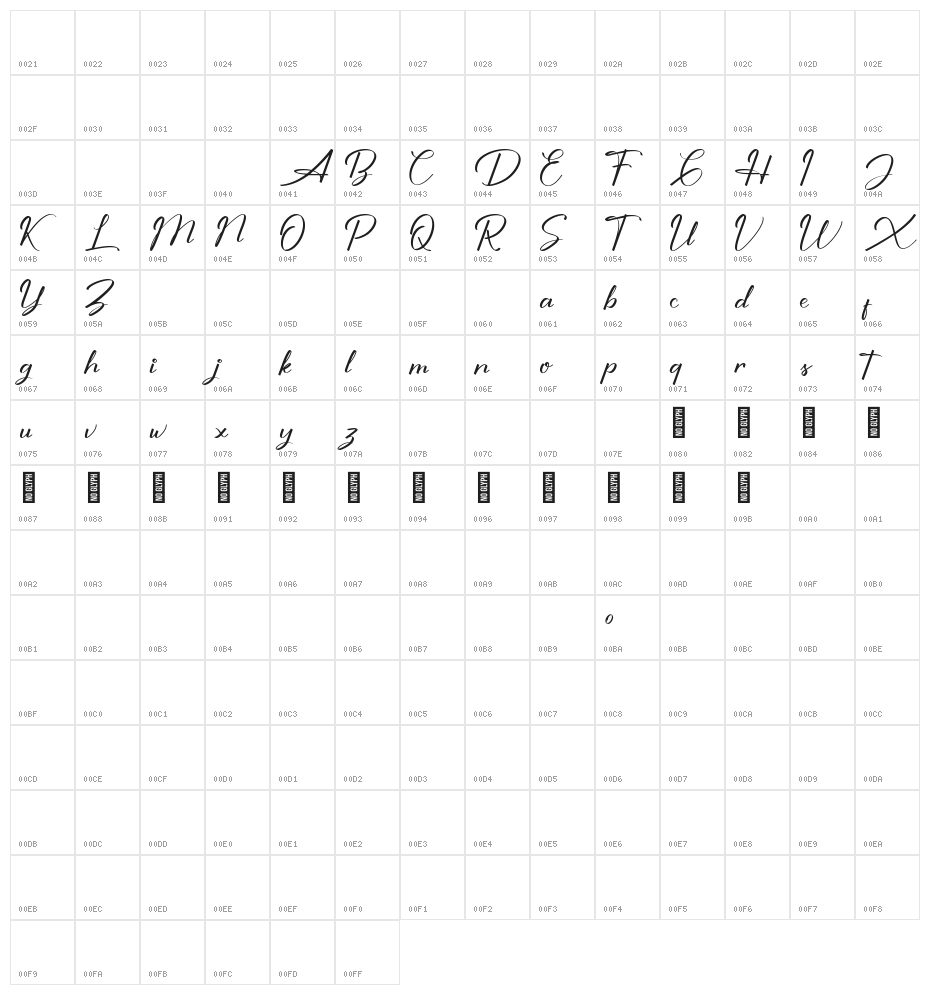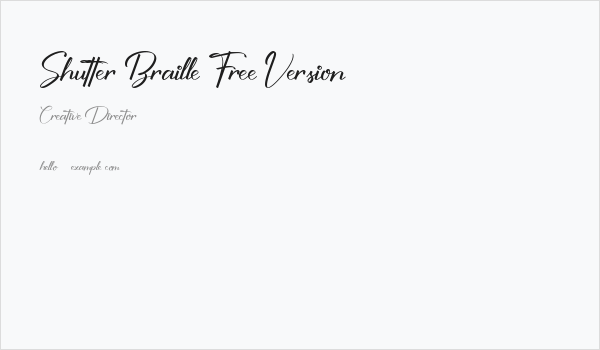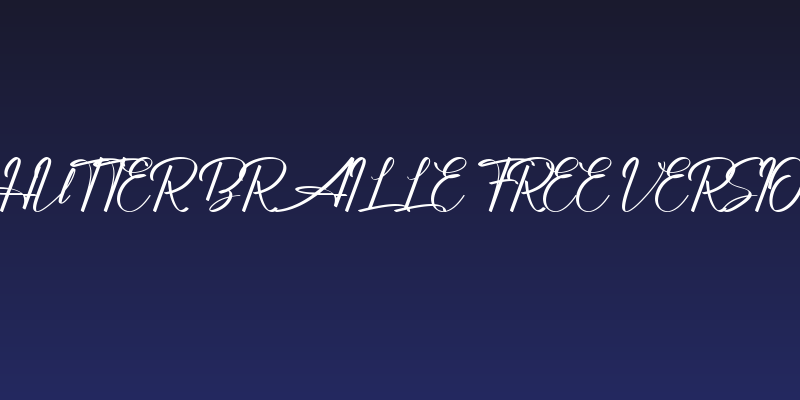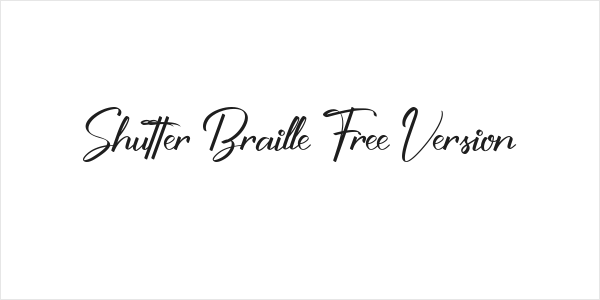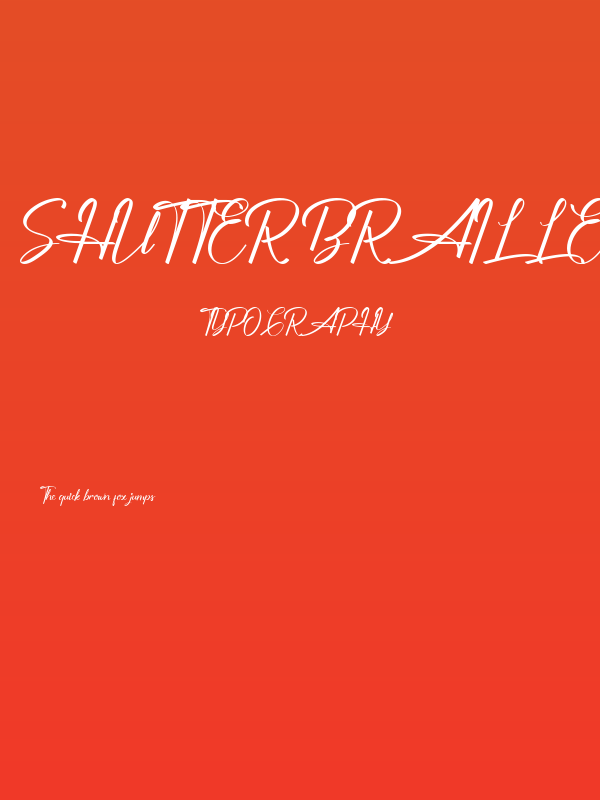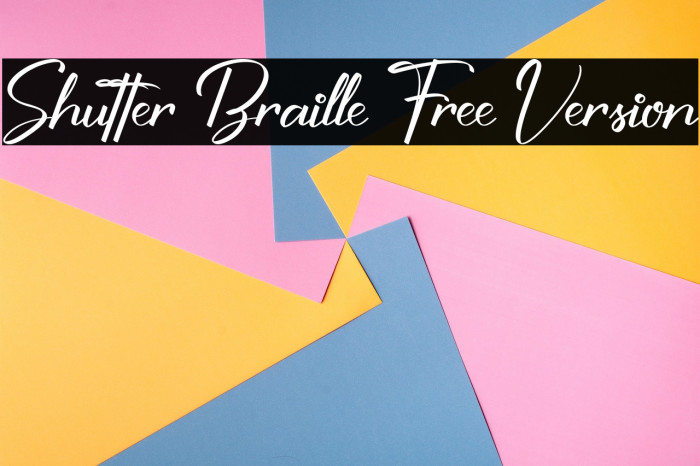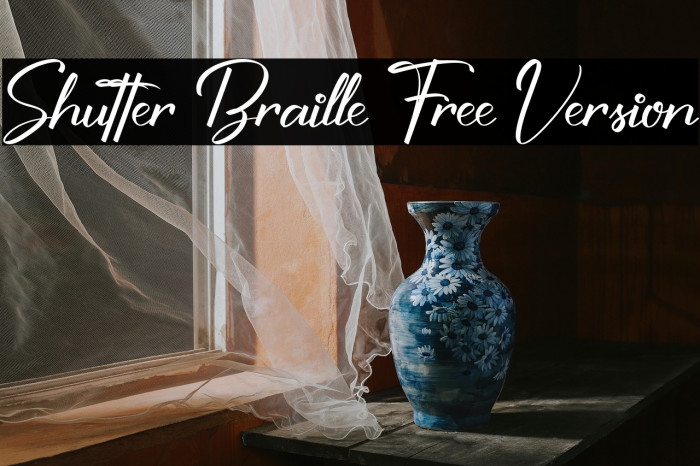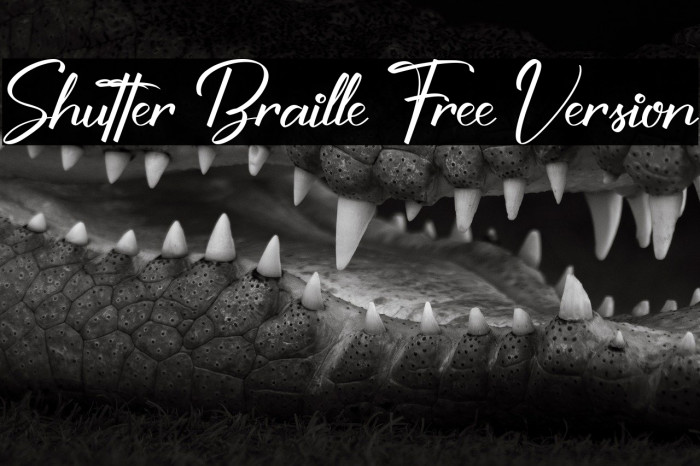
Shutter Braille Free Version Font
Shutter Braille Free Version Description
This font exudes a dynamic and elegant script style, characterized by its fluid and cursive letterforms. The uppercase letters are bold and sweeping, with dramatic flourishes that give a sense of movement and grace. The lowercase letters maintain a consistent flow, with some characters featuring unique loops and swashes that add personality and flair. The overall design is reminiscent of traditional calligraphy, yet it maintains a modern touch with its clean lines and balanced proportions. This font is perfect for creating a sophisticated and stylish aesthetic.
| Overall Style | Elegant, Modern |
| Proposed Projects | Ideal for wedding invitations, elegant branding, greeting cards, and upscale packaging designs. |